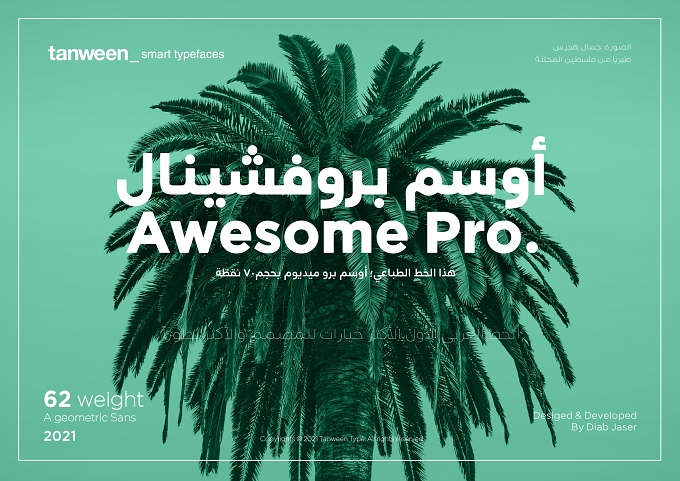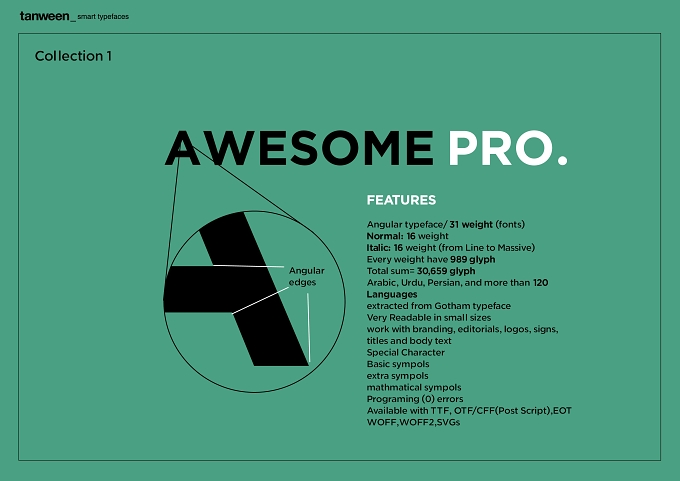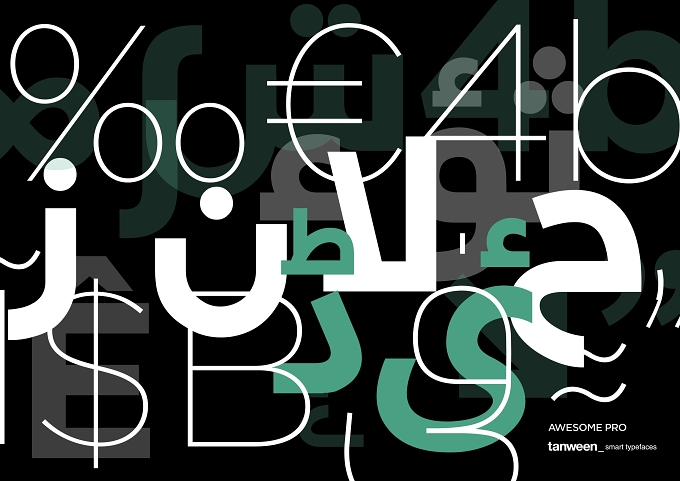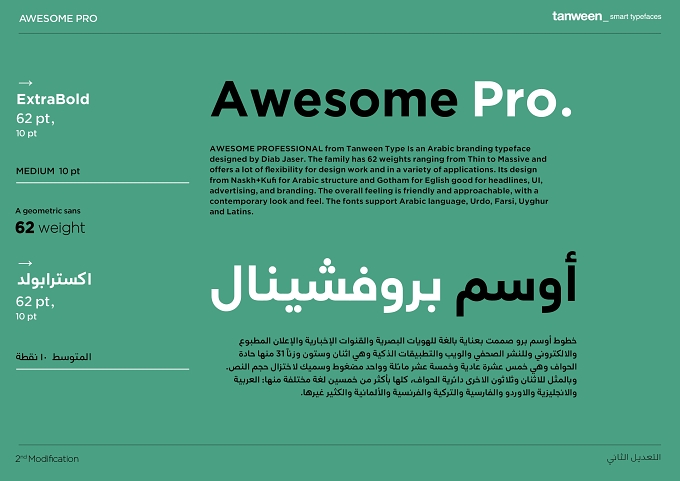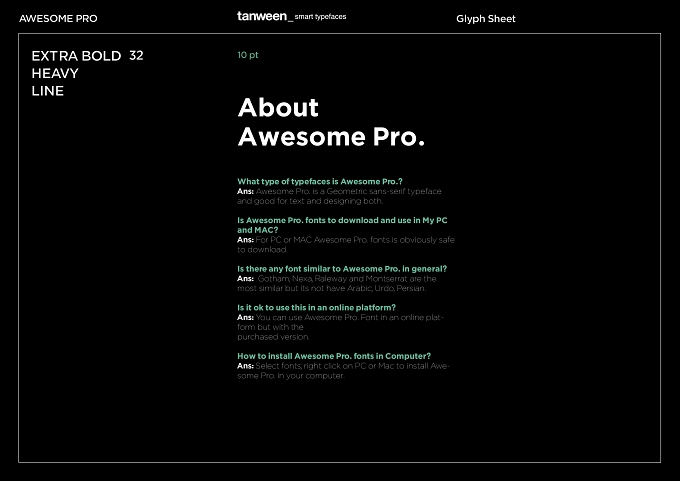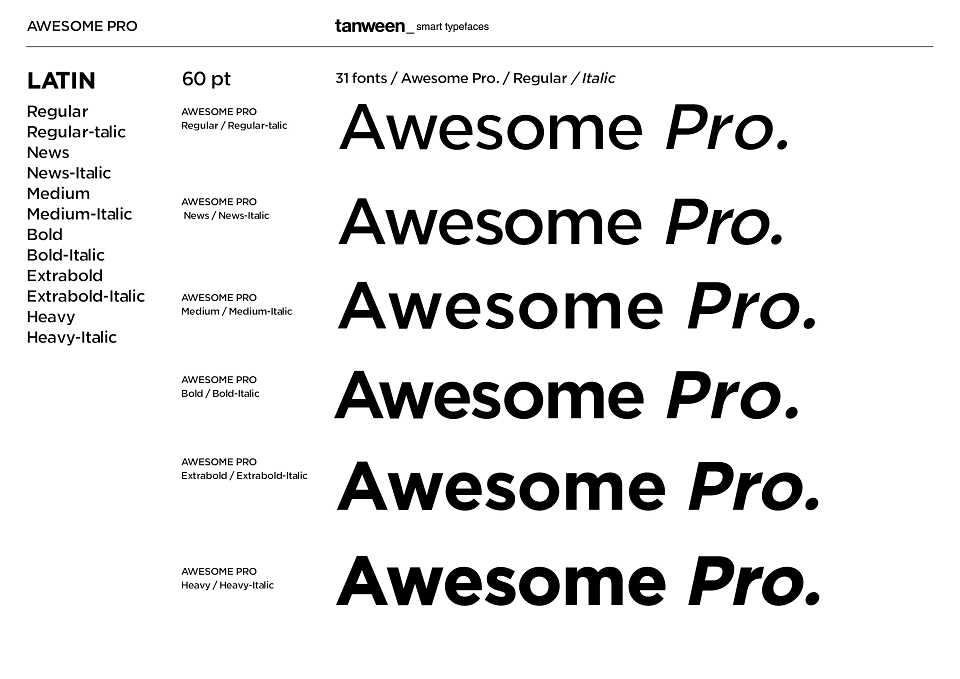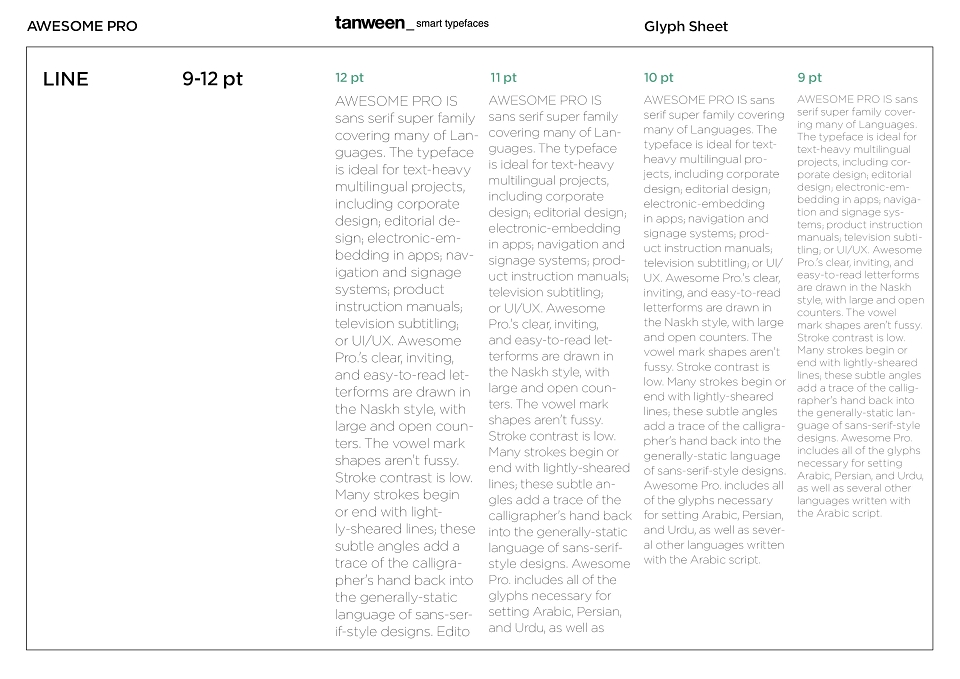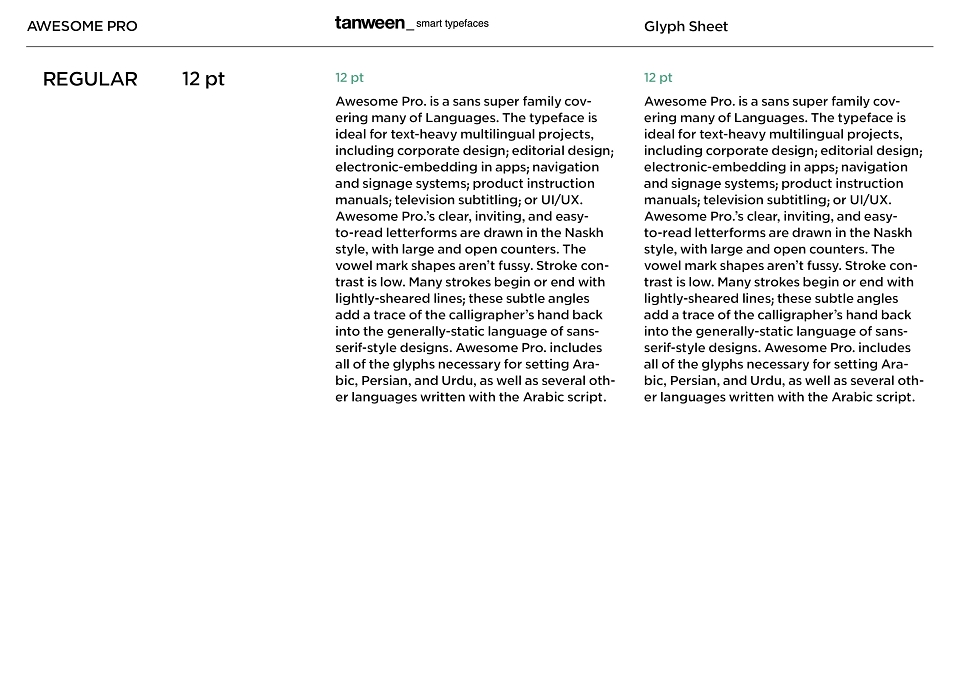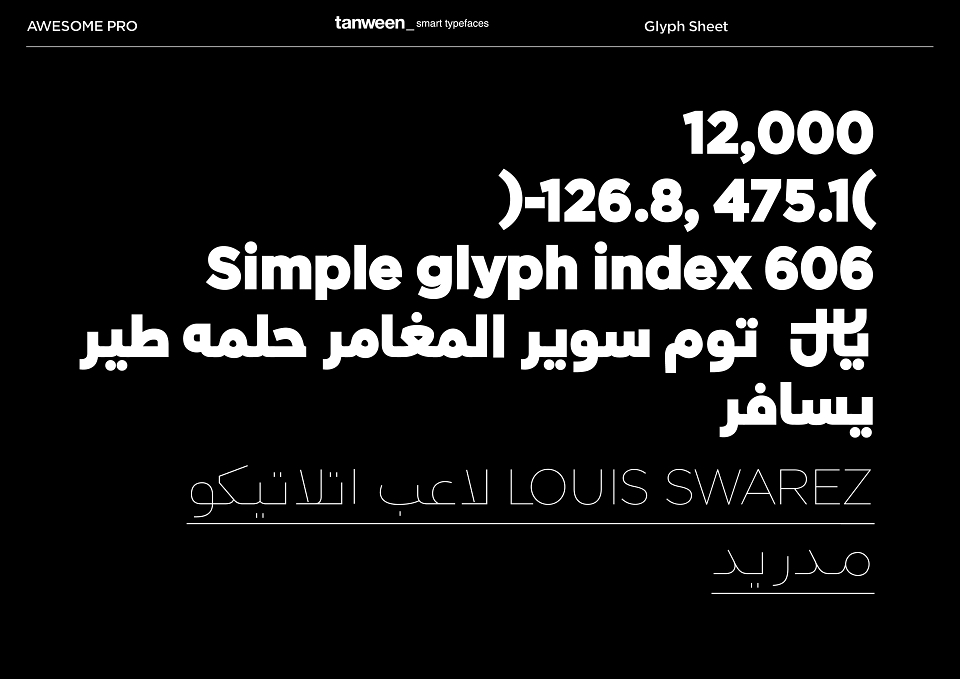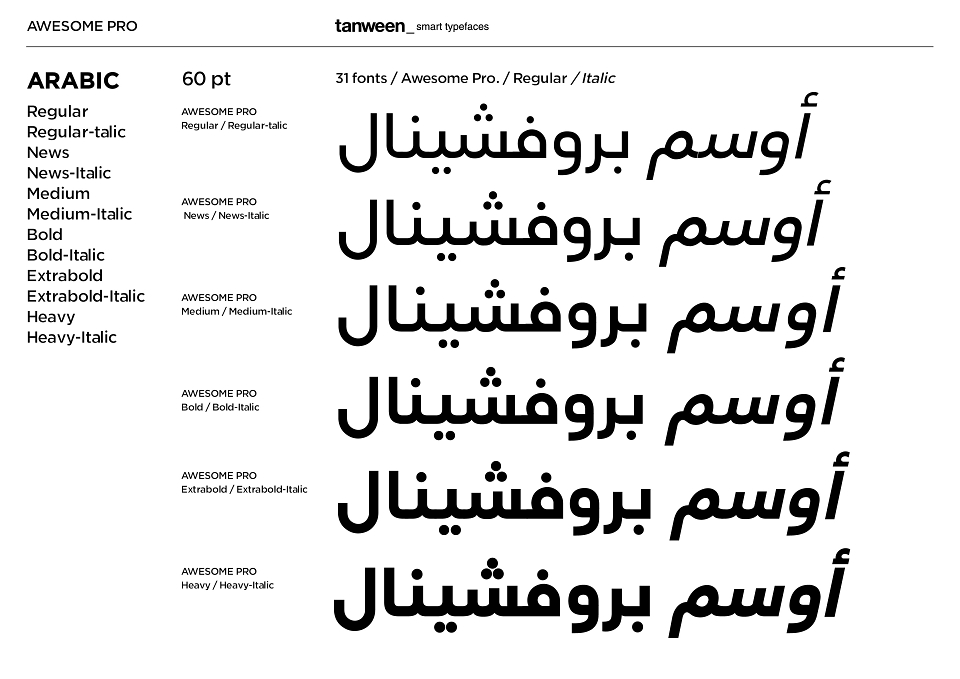
Tanween Type 2021
DESIGNED & PROGRAMMED BY
Diab Jaser
FAMILIES
62 Weights
31 angular 31 rounded
FEATURES
Angular typeface/ 31 weight fonts
Normal: 31 weight
Italic: 31 weight from Line to Massive
Every weight have 989 glyph
Total sum = 30,659 glyph
Arabic, Urdu, Persian, and more than 120 Languages
Extracted from Gotham typeface
Very Readable in small sizes
work with branding, editorials, logos, signs, titles and body text
Special Character
Basic symbols
extra symbols
mathematical symbols
Awesome Pro Typeface